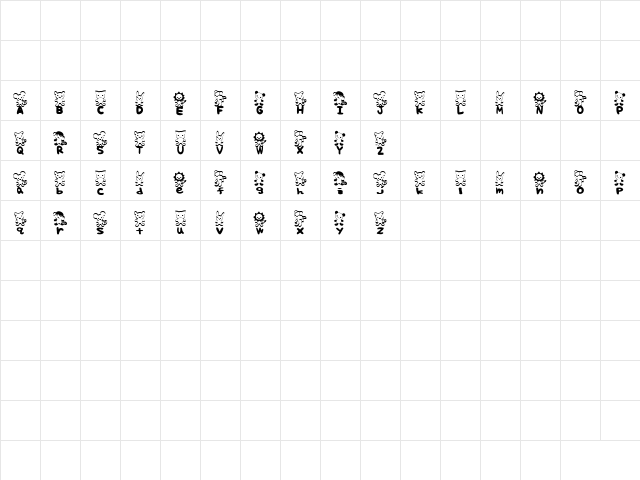
TTEdit Font Regular Free Font
TTEdit Font Regular
Design Context for TTEdit Font
TTEdit Font is a composed and adaptable typeface that performs quietly and consistently across a wide range of design contexts.